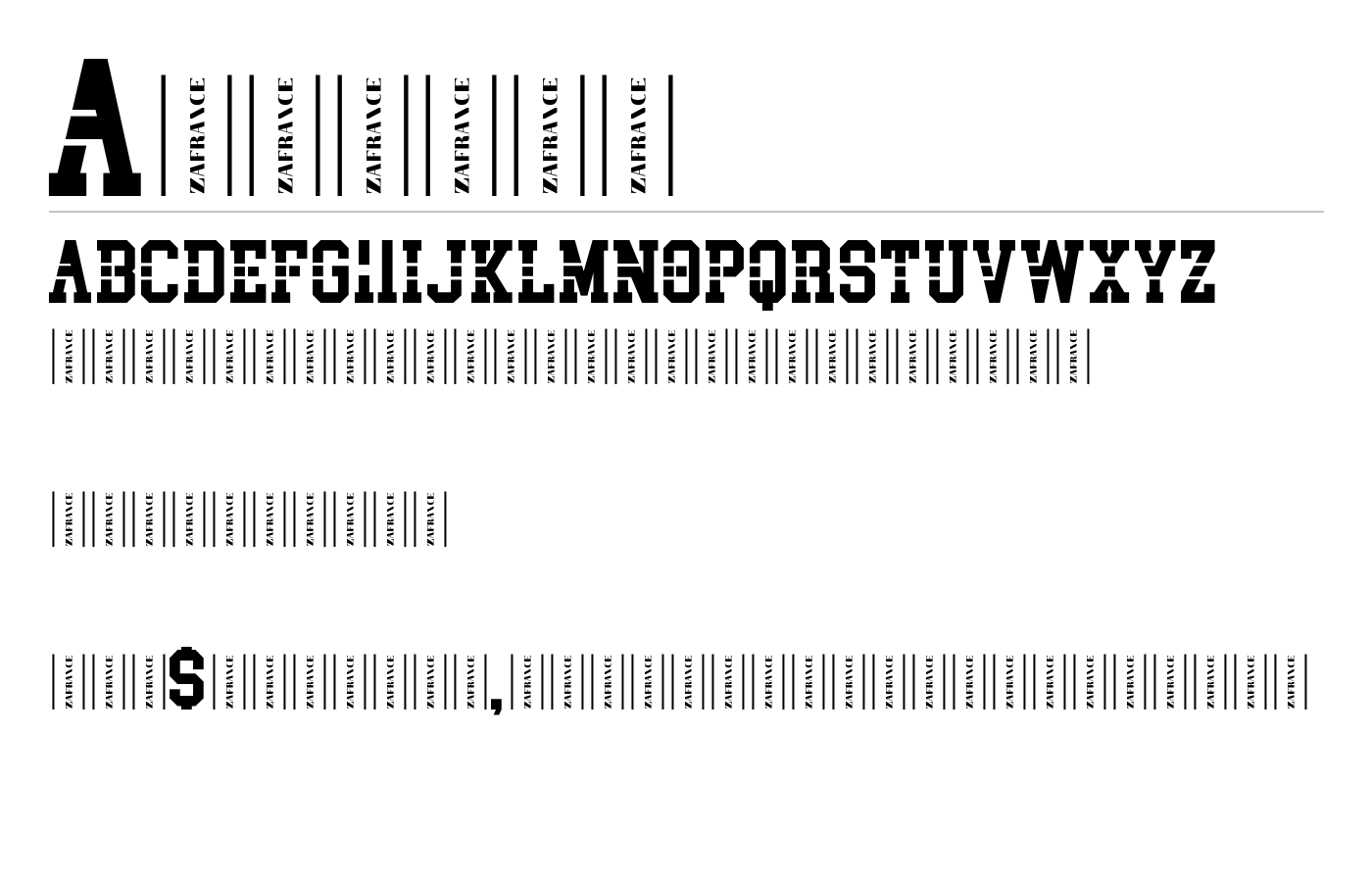
Analyst is a bold, condensed slab serif font featuring strong, blocky letterforms with high stroke contrast and sharp, squared serifs. Its distinctive, industrial style makes it perfect for impactful headlines, posters, and branding that require a commanding, vintage-inspired presence. This font conveys strength and authority while maintaining clarity and visual interest.
Analyst Font
About Analyst Font